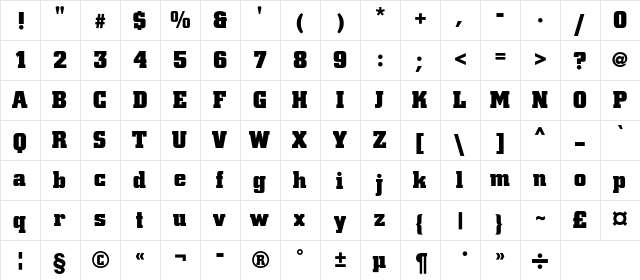
ColiseumUltraBlackC Regular
Design Context for ColiseumUltraBlackC Typeface
ColiseumUltraBlackC takes a measured approach to typography — its balanced proportions and neutral character make it a reliable workhorse for both digital and print work.